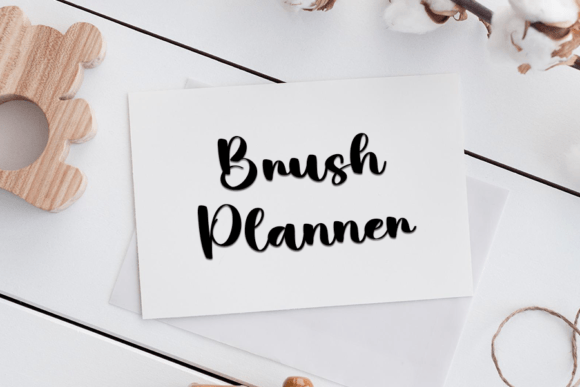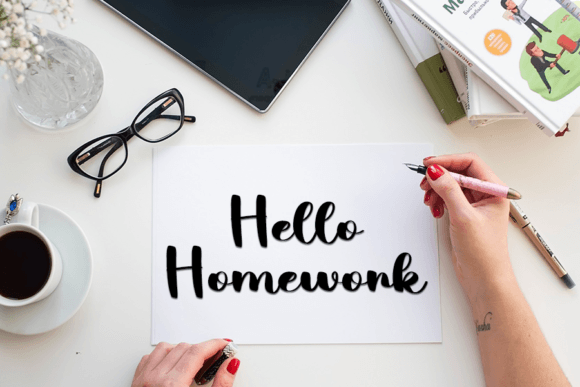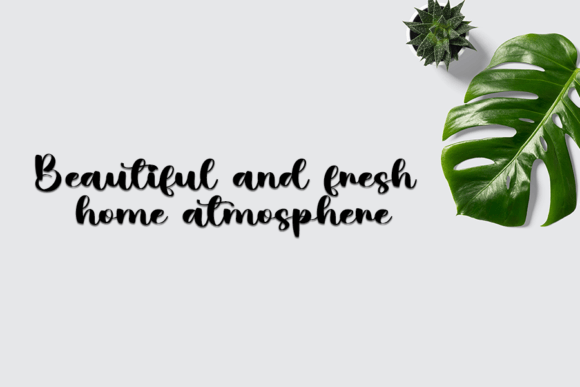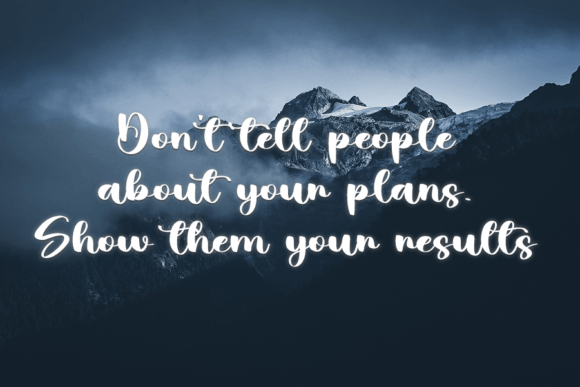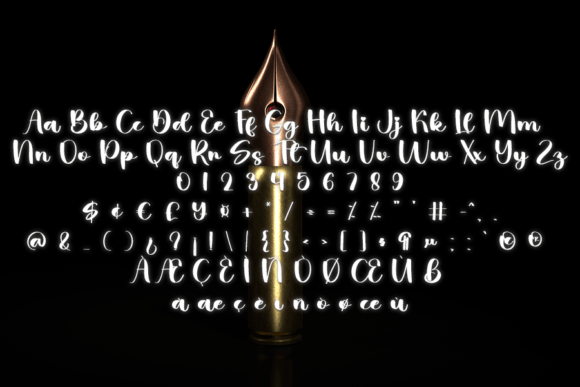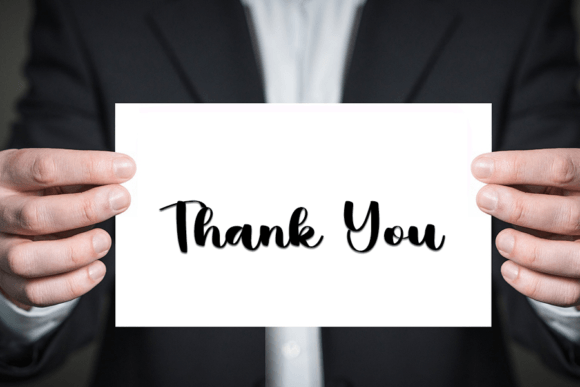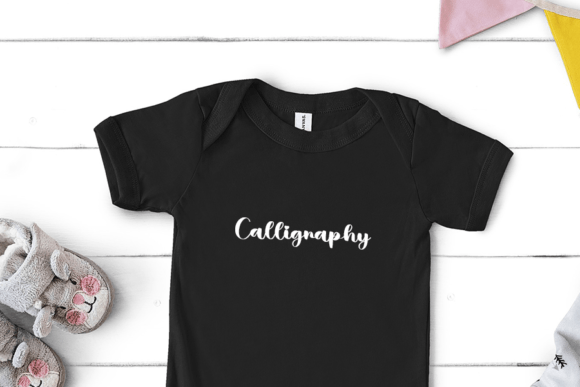
Calligraphy Font
About Calligraphy Font
Introducing “Calligraphy,” a meticulously crafted handwritten font that embodies delicacy and sophistication, making it the perfect choice for achieving a cool and distinctive design. This font serves as a versatile tool for a wide range of creative applications, including crafting heartfelt letters, designing elegant invitations, enhancing the packaging of gourmet food products, creating eye-catching titles, and so much more.
“Calligraphy” is more than just a font; it’s a design asset that effortlessly elevates your creative projects with a sense of artistry and uniqueness. Its carefully crafted characters exude a delicate beauty, allowing you to create designs that resonate with cool elegance and a touch of individuality.
One of the standout features of “Calligraphy” is its adaptability. Whether you’re penning personalized letters, designing exquisite invitations for special occasions, or labeling artisanal food products with a touch of sophistication, this font seamlessly integrates into diverse design contexts, enhancing each project with its distinctive allure.
The font’s appeal extends effortlessly from traditional print media to the digital landscape. From the pages of a beautifully designed cookbook to the modern, minimalist interface of a trendy website, “Calligraphy” adds an artistic and cool touch to every setting. Its impeccable readability ensures that your message is conveyed with clarity and artistic flair, while its inherent delicacy adds an extra layer of visual allure.
What truly sets “Calligraphy” apart is its ability to bring a sense of artistic uniqueness to your designs. It’s a font that invites your audience to engage with your creative ideas on a personal level. With “Calligraphy” as part of your creative toolkit, you can convey your message in a way that resonates with sophistication-loving audiences.
Furthermore, “Calligraphy” offers a wide array of customization options, allowing you to tailor your text to perfectly match your creative vision. This flexibility empowers you to create designs that are as unique as your artistic imagination.
In conclusion, “Calligraphy” is not just a font; it’s a design asset that infuses your creative projects with delicacy, sophistication, and a touch of cool uniqueness. Embrace its handwritten style, and let it inspire you to craft cool and distinctive designs that leave a lasting impression. With “Calligraphy” by your side, your creative possibilities are endless, enabling you to create works of art that are as artistic and unique as they are versatile and cool.